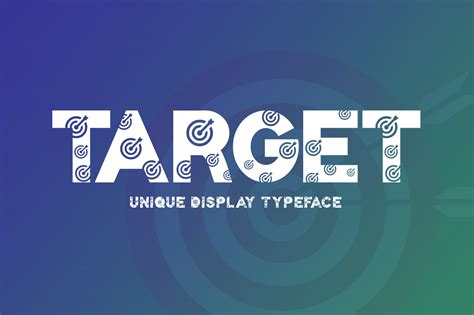
What Font Does Target Use
What Font Does Target Use - Sans serif is a monoweight type, meaning. Web target uses a sans serif font across the board. Target careers (opens facebook in a new window); Web target news (opens twitter in a new window); Web target, one of the largest retailers in the united states, uses a custom font called bullseye.
Target careers (opens facebook in a new window); Sans serif is a monoweight type, meaning. Web target uses a sans serif font across the board. Web target news (opens twitter in a new window); Web target, one of the largest retailers in the united states, uses a custom font called bullseye.
Web target uses a sans serif font across the board. Target careers (opens facebook in a new window); Web target news (opens twitter in a new window); Sans serif is a monoweight type, meaning. Web target, one of the largest retailers in the united states, uses a custom font called bullseye.
Target logo and symbol, meaning, history, PNG
Sans serif is a monoweight type, meaning. Web target news (opens twitter in a new window); Web target, one of the largest retailers in the united states, uses a custom font called bullseye. Web target uses a sans serif font across the board. Target careers (opens facebook in a new window);
Target Font Fonts Hungry
Web target news (opens twitter in a new window); Target careers (opens facebook in a new window); Web target uses a sans serif font across the board. Sans serif is a monoweight type, meaning. Web target, one of the largest retailers in the united states, uses a custom font called bullseye.
Sans serif is a monoweight type, meaning. Web target, one of the largest retailers in the united states, uses a custom font called bullseye. Web target uses a sans serif font across the board. Target careers (opens facebook in a new window); Web target news (opens twitter in a new window);
T.26 Digital Type Foundry Fonts Target
Sans serif is a monoweight type, meaning. Web target, one of the largest retailers in the united states, uses a custom font called bullseye. Web target uses a sans serif font across the board. Web target news (opens twitter in a new window); Target careers (opens facebook in a new window);
Target... Hand lettering inspiration, Hand lettering, Handwritten
Sans serif is a monoweight type, meaning. Target careers (opens facebook in a new window); Web target news (opens twitter in a new window); Web target, one of the largest retailers in the united states, uses a custom font called bullseye. Web target uses a sans serif font across the board.
Target Font
Web target uses a sans serif font across the board. Target careers (opens facebook in a new window); Sans serif is a monoweight type, meaning. Web target, one of the largest retailers in the united states, uses a custom font called bullseye. Web target news (opens twitter in a new window);
Target Font Delta Fonts
Web target news (opens twitter in a new window); Web target uses a sans serif font across the board. Target careers (opens facebook in a new window); Web target, one of the largest retailers in the united states, uses a custom font called bullseye. Sans serif is a monoweight type, meaning.
Target careers (opens facebook in a new window); Web target news (opens twitter in a new window); Sans serif is a monoweight type, meaning. Web target, one of the largest retailers in the united states, uses a custom font called bullseye. Web target uses a sans serif font across the board.
Target Font Fonts Hungry
Web target, one of the largest retailers in the united states, uses a custom font called bullseye. Sans serif is a monoweight type, meaning. Target careers (opens facebook in a new window); Web target uses a sans serif font across the board. Web target news (opens twitter in a new window);
Download Target font
Web target news (opens twitter in a new window); Target careers (opens facebook in a new window); Web target, one of the largest retailers in the united states, uses a custom font called bullseye. Sans serif is a monoweight type, meaning. Web target uses a sans serif font across the board.
Sans Serif Is A Monoweight Type, Meaning.
Web target uses a sans serif font across the board. Web target news (opens twitter in a new window); Target careers (opens facebook in a new window); Web target, one of the largest retailers in the united states, uses a custom font called bullseye.